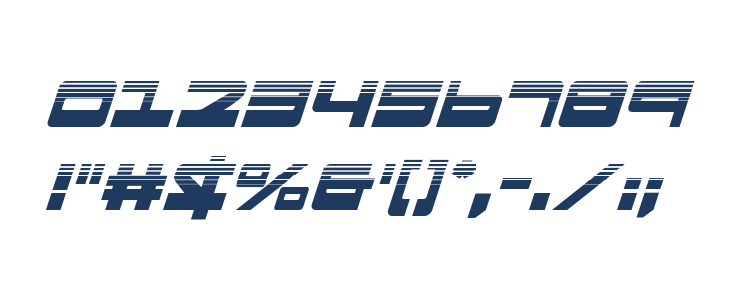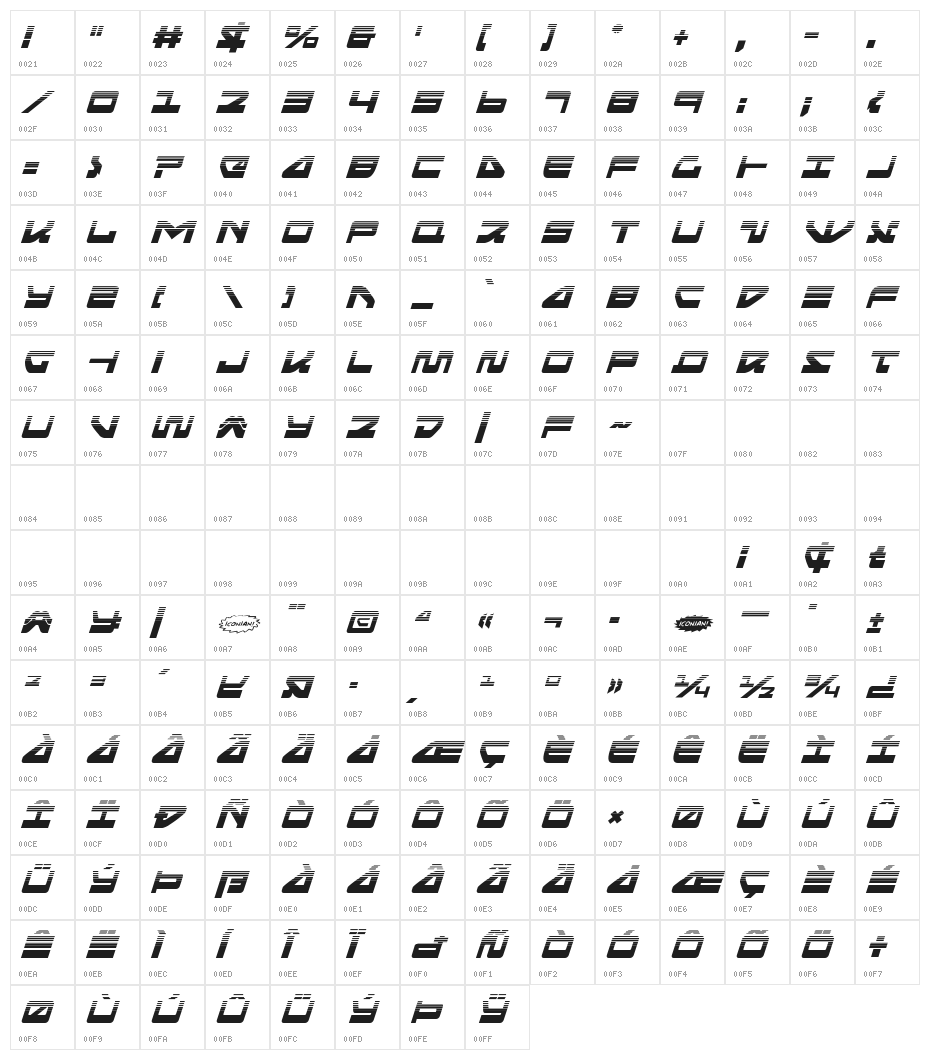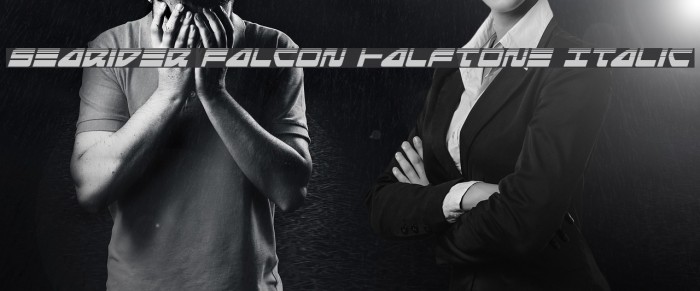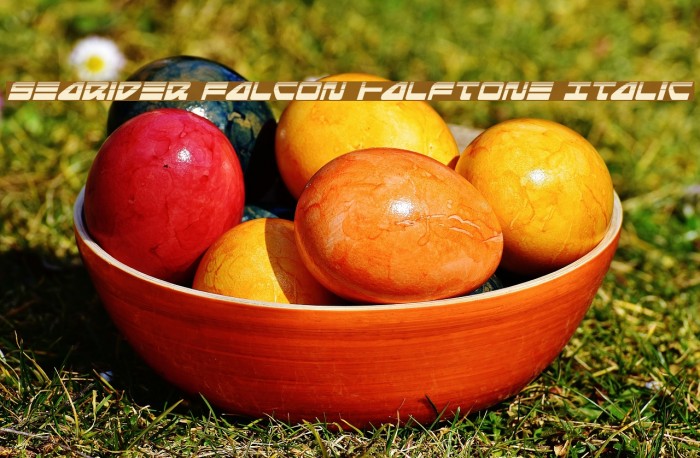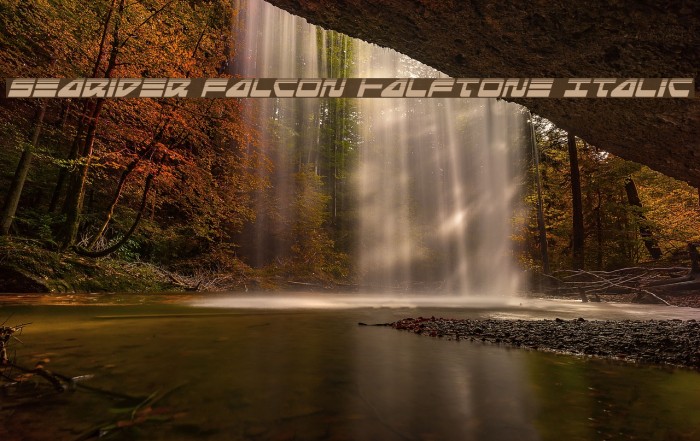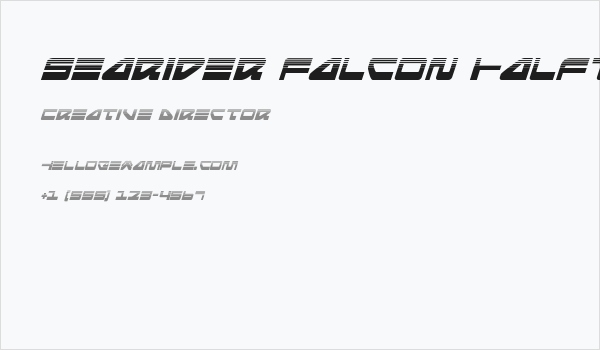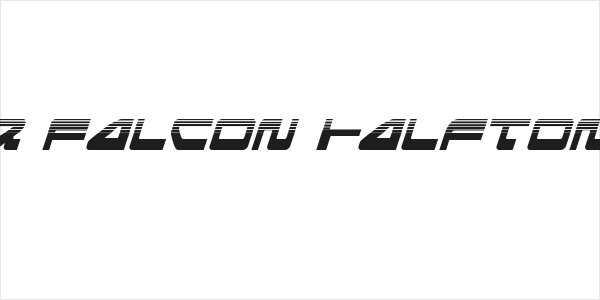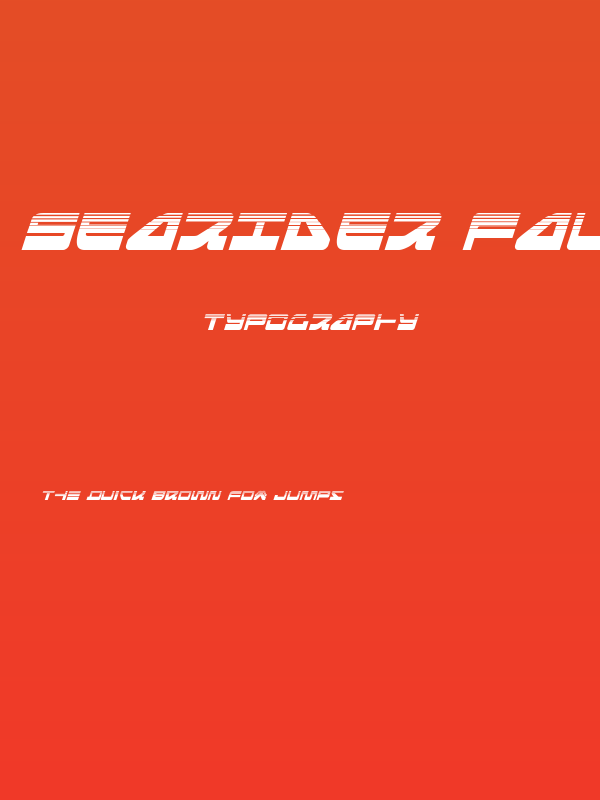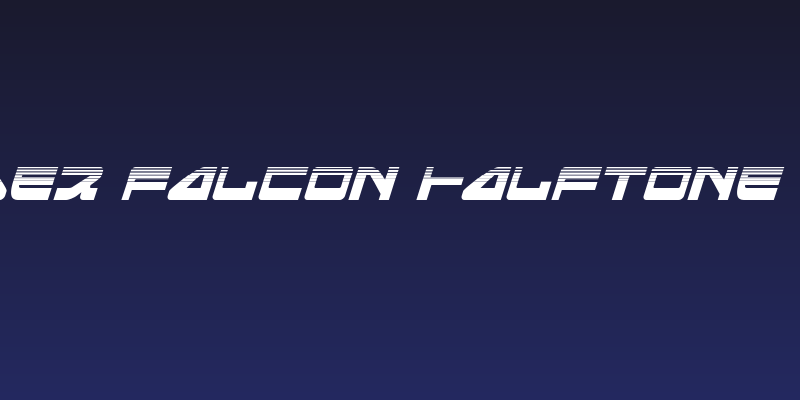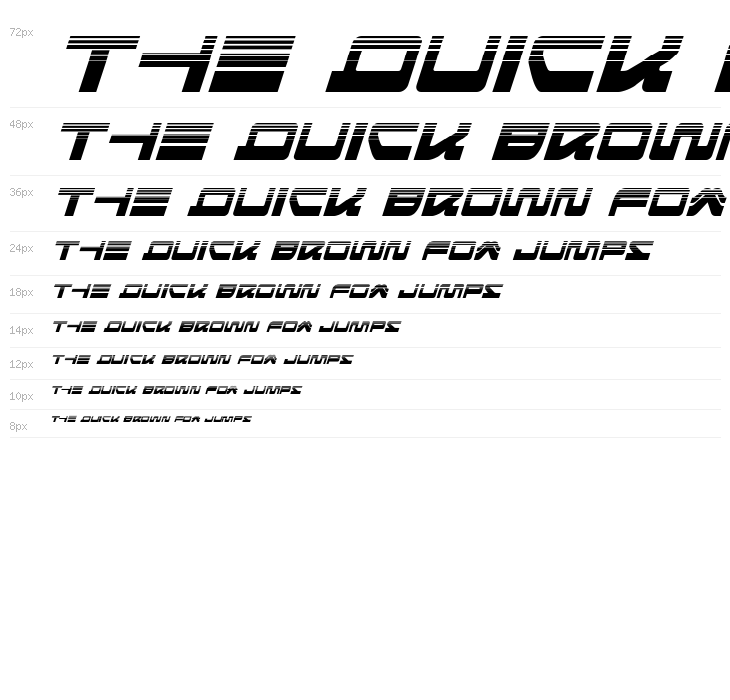
Searider Falcon Halftone Italic Font
Searider Falcon Halftone Italic Description
This font features a bold, futuristic design with a halftone effect that gives it a dynamic and energetic appearance. The characters are italicized, adding a sense of motion and speed. The uppercase and lowercase letters maintain a consistent style, with sharp angles and a unique striped pattern that enhances its modern aesthetic. The numbers and special characters follow the same design principles, ensuring uniformity across all glyphs. This font is visually striking, making it ideal for projects that require a bold statement.
Proposed ProjectsIdeal for sports branding, sci-fi themed designs, video game titles, and dynamic posters.